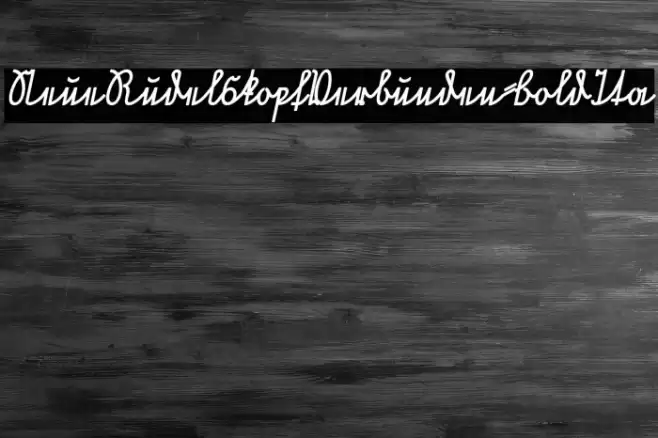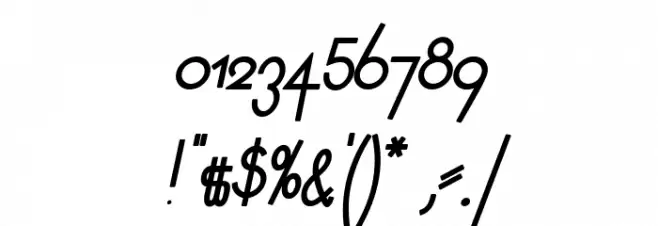
NeueRudelskopfVerbunden-BoldIta Font
NeueRudelskopfVerbunden-BoldIta Description
This font exhibits a dynamic and fluid cursive style, characterized by its bold and italicized strokes. The letters are interconnected, creating a seamless flow that mimics natural handwriting. The uppercase letters maintain a consistent height, while the lowercase letters feature elegant loops and curves. Numbers and special characters are designed to match the script's overall aesthetic, ensuring uniformity across all elements. The font's bold weight enhances its visibility, making it suitable for attention-grabbing designs.
A bold, italic cursive font with interconnected letters and a handwritten style from Uncategorized fonts.
- Proposed Projects: Ideal for wedding invitations, greeting cards, personal branding, and artistic projects requiring a personal touch.
- Character Spacing: Tight
- Use Case: Logos, Headlines, Invitations